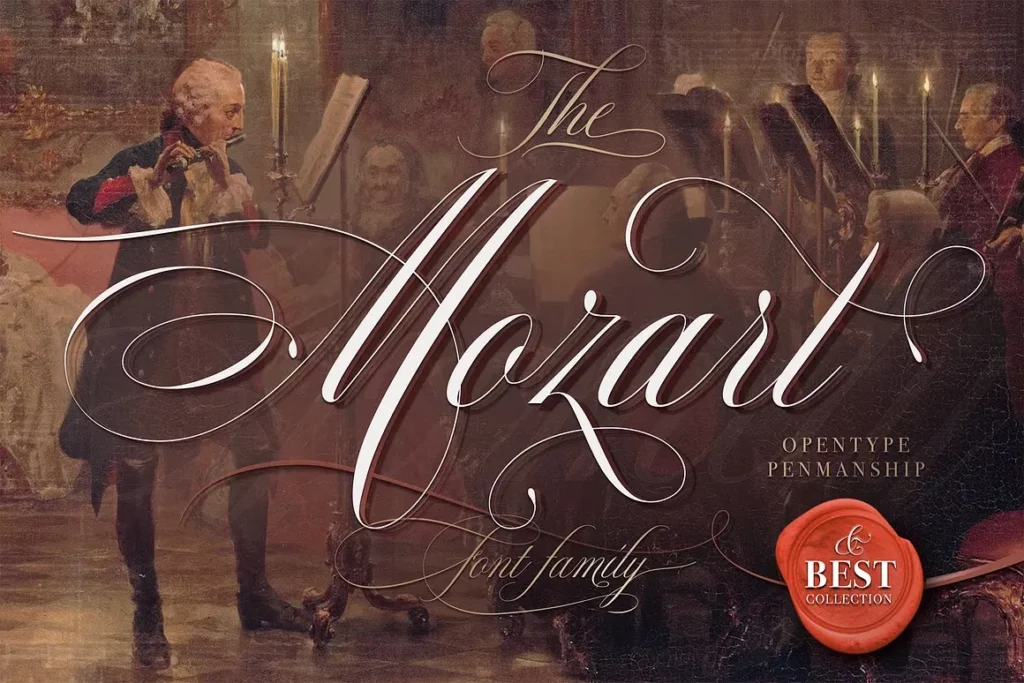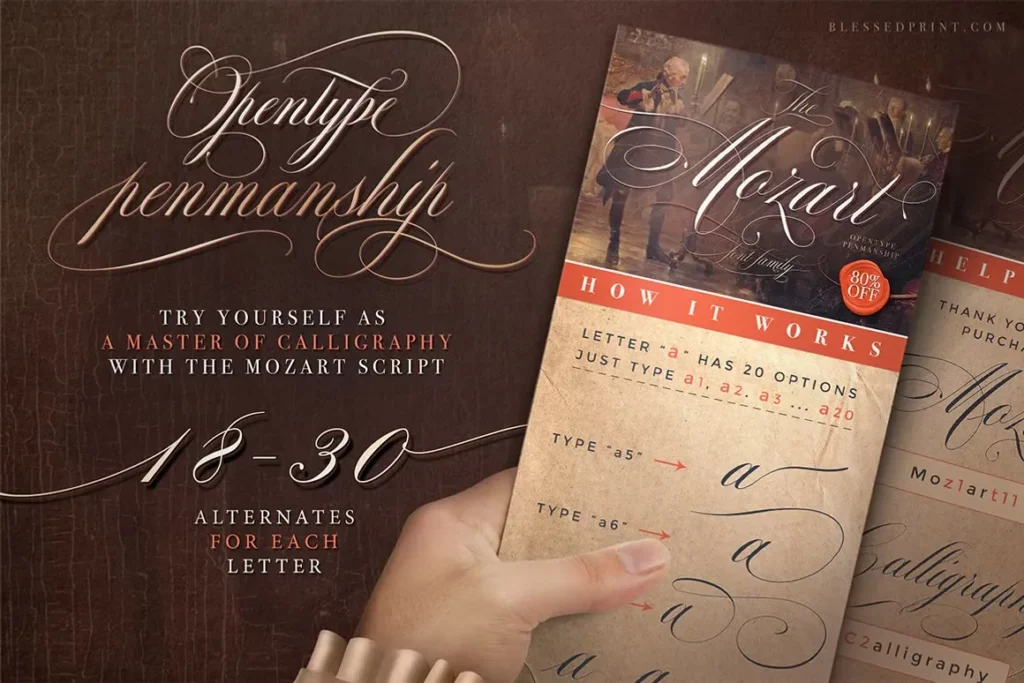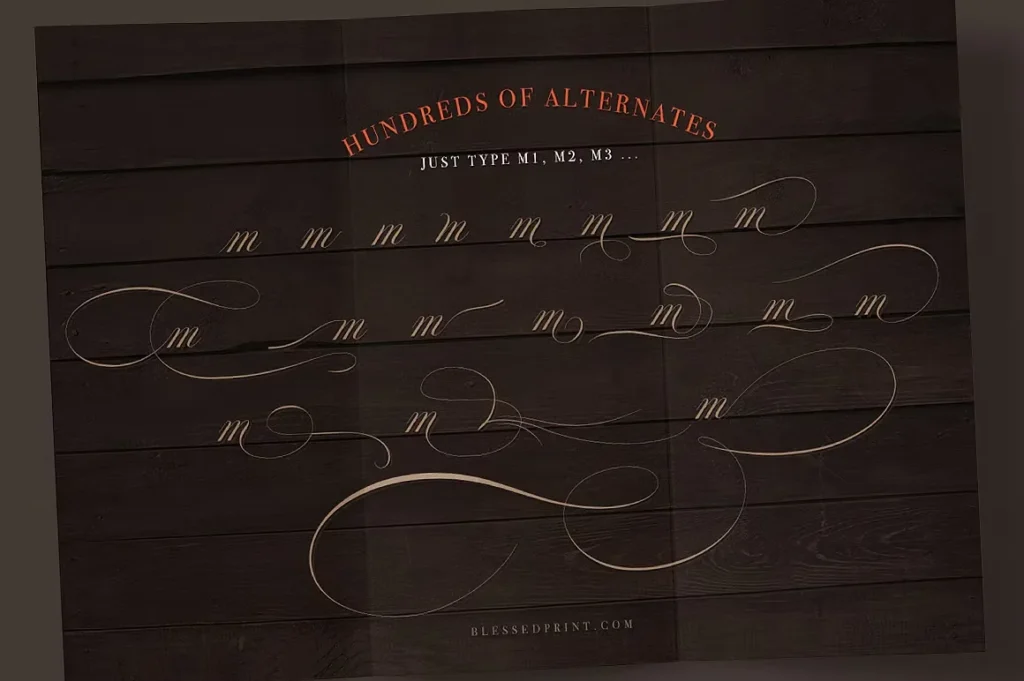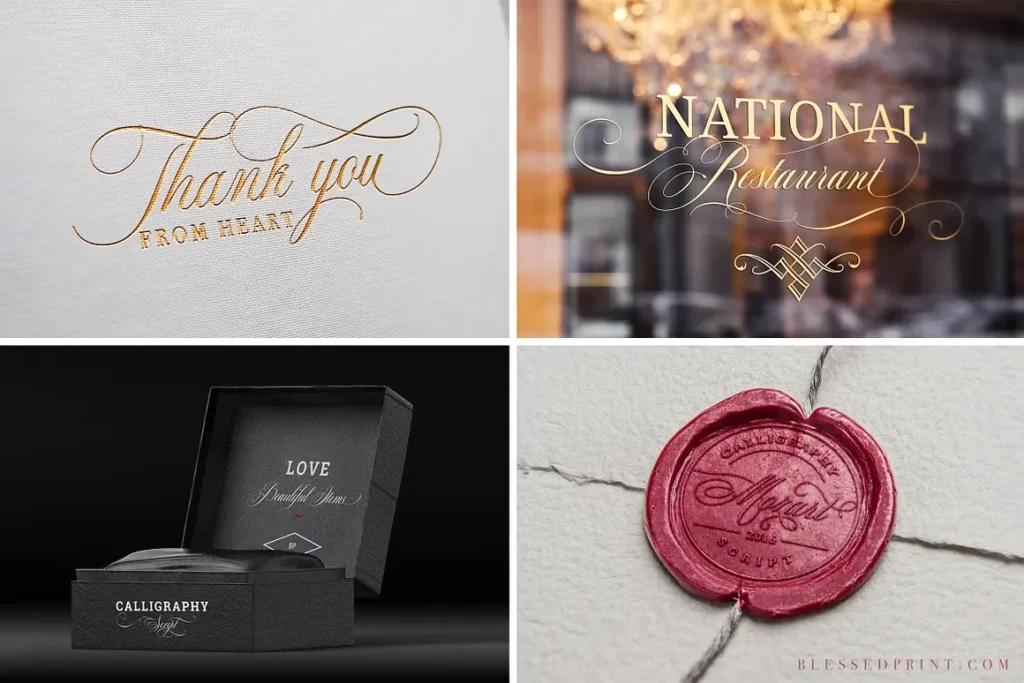
About Mozart Script Font
The Font and Its Creator
Mozart font stands as a stunning digital recreation of professional calligraphy, designed by the talented team at Blessed Print. This cursive font captures the essence of early American penmanship and Spencerian script traditions that would make Wolfgang Amadeus Mozart himself proud of its elegant namesake.
Unlike standard typefaces, Mozart script offers four distinct weights—Thin, Regular, Bold, and Black—each maintaining that gorgeous high-contrast look between ultra-thin and bold strokes. The font files include special versions optimized for different uses, like the ExtLight version for smaller text and a CutOff version for programs that don’t support OpenType features.
What sets this font apart from similar script options is its incredible flexibility. While many fonts like Mozart exist in the digital fonts marketplace, few offer such extensive alternates with easy access methods. For designers using Adobe Photoshop, Adobe Illustrator, or even more accessible platforms like Canva and Procreate, Mozart delivers professional results without the learning curve of actual calligraphy. It works flawlessly for both print and vector graphics projects, making it a valuable addition to any designer’s collection.
Features That Make Mozart Font Special
Mozart script comes packed with 1,579 glyphs, including over 600 individual alternates! The most impressive feature? Accessing these alternates is surprisingly simple. Just type a number after each letter (like “a1” or “M2”) to cycle through options. This system lets you quickly customize without disrupting your creative flow—no need to constantly open the glyph panel.
Mozart’s OpenType features include contextual alternates that automatically swap first lowercase letters after capitals and last letters in words. The discretionary ligatures create natural connections between letters, while stylistic alternates let you fine-tune the look. Every capital letter offers 3-4 variations, giving you control over how formal or playful your text appears. The font supports over 40 languages, making it truly versatile for global design projects, whether for commercial use on Etsy listings or personal creative work.
Mozart font shines brightest in projects that need that handcrafted, elegant touch. Wedding invitations immediately come to mind—the flowing lines add instant sophistication to names and dates. For branding work, this font creates memorable logos for boutique businesses, especially those in fashion design, jewelry, art, or high-end gift industries.
I’ve personally used it for menu designs where it transformed ordinary food listings into an experience that matched the restaurant’s aesthetic. The font works beautifully on poster designs, advertising materials, and even wall art with inspirational quotes.
Digital applications are just as impressive. The font renders beautifully in mockups for clients and looks stunning on websites for brands aiming for that personal, artistic feel. Teachers love using it for classroom materials that need a fun font touch without sacrificing readability.
For craft enthusiasts with Cricut machines, Mozart script cuts cleanly for vinyl projects, wood signs, and paper goods. The SVG font capabilities make it perfect for creating custom shirt designs, hoodie graphics, or even tattoo templates.
Social media graphics pop when using Mozart—especially on platforms like Instagram where aesthetics matter. The font pairs beautifully with sans serif companions for balanced, modern designs that work across United States markets and international audiences alike.